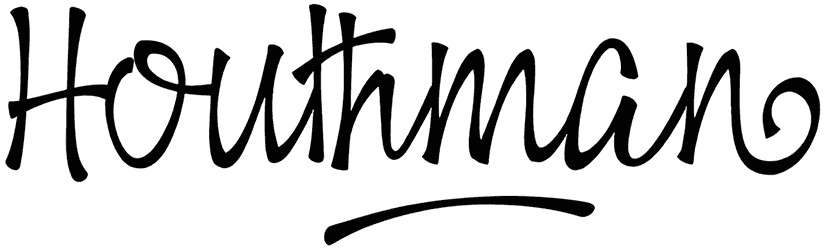
Houthman Font
Houthman, a handwritten font, conjures images of a bygone era. Whether you’re into calligraphy, branding, card production, flyer making, or any other creative endeavors, this font, with its two different styles, is great for you.